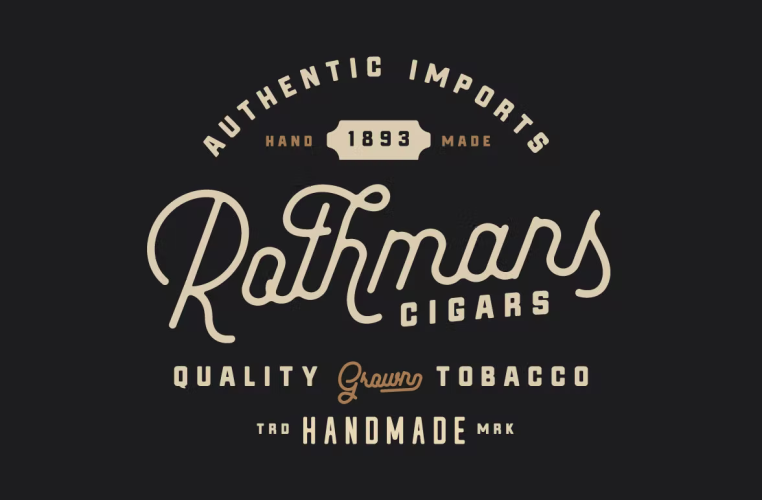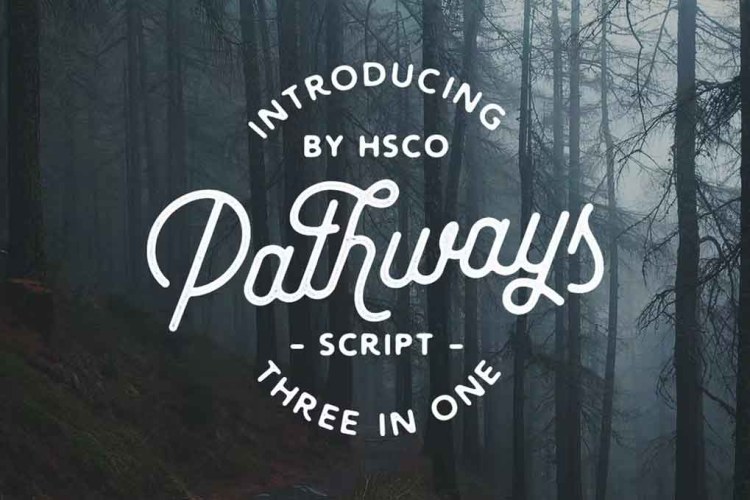
Pathways 4 Styles Font
Pathways | 4 Styles + Bonuses
“Pathways” is a script typeface available in 3 different styles: Circular Strokes, Rectangular Strokes and a Rough Version for a printed aesthetic. With many alternate characters & ligatures, Pathways is an extremely versatile Script Typeface. Developed with Logo & Label Designers in mind, Pathways will be a useful tool in your arsenal! This typeface will be a treat for you to use and will find it’s way into many projects with it’s clean and versatile styling.
Where Pathways 4 Styles Font works best
A short phrase in Pathways 4 Styles Font carries warmth that a typeset sans cannot fake; keep the rest of the card plain.
Chalkboard-style headings in Pathways 4 Styles Font make a menu feel hand-made. Keep the dish descriptions in a simple face so prices stay readable.
One line of Pathways 4 Styles Font over a photo is enough; the script carries the tone and the caption does the work.
What kind of work does Pathways 4 Styles Font suit?
It sits in the Script And Handwritten group and reads as branding, clean, script, script and handwritten. That makes it a candidate wherever those qualities help: headings, packaging, social graphics and brand work. Set it at the size you plan to use before deciding.